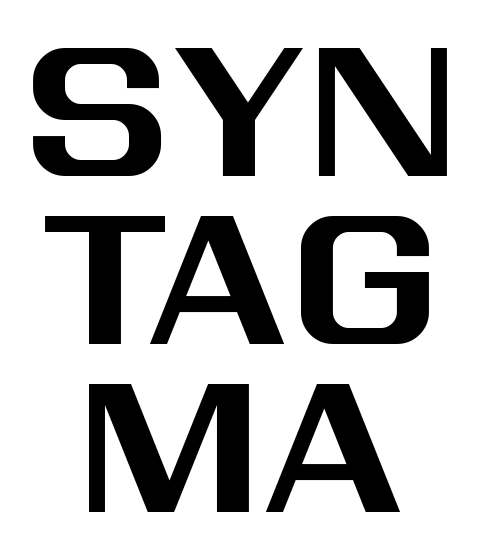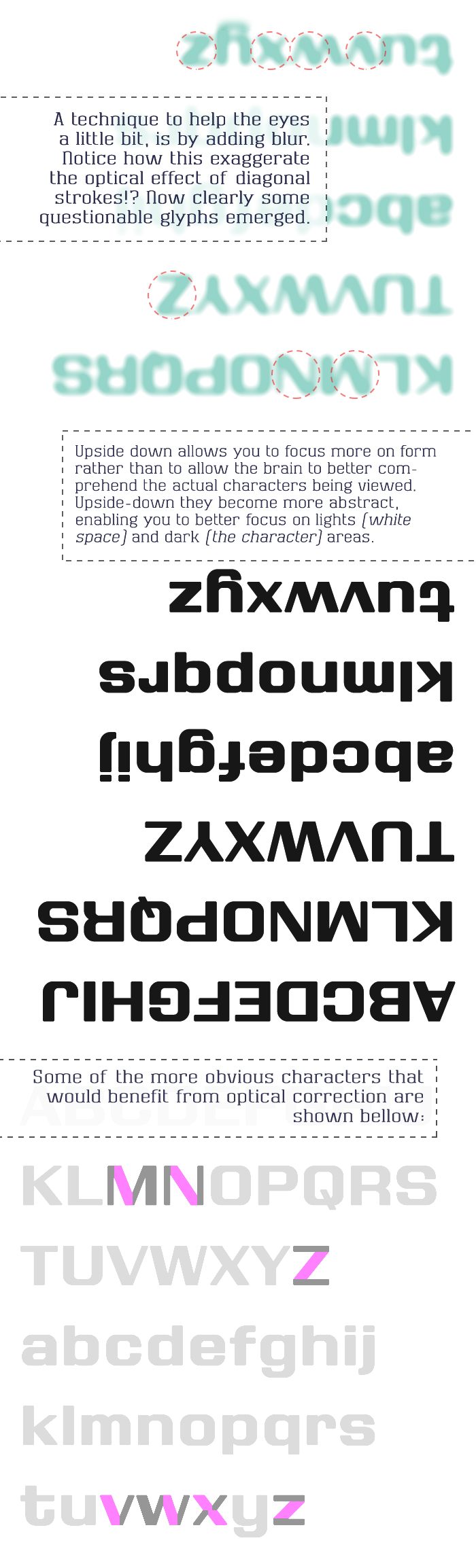
Another solid and highly functional font with that typical yautja flavour.
The one small thing I'd like to point out is that diagonal stroke weight for most characters feels a tad bit heavy sided compared to the vertical stroke weight.
@Sed4tives the stroke weights look okay to me, maybe it's just the quality of the FS preview? (At smaller sizes it looks pretty messy.) I'd like to hear more opinions on this.
Very nice contrast between horizontal and vertical. One of my fonts uses a similar contrast in its letters.
I wonder if making the curved areas larger on the D would make it look better?
I also wonder if making the numberals a bit narrower would help distingush the digit 0 from the capital O?
Sorry for the sheer size of the content, its quite a lot I know, but I couldn't simplify it more efficiently.. my apologies on this again. I'm pretty sure you know the majority of this quite well, but this shed some light the reasons for my previous judgement. I hope it clarifies it better this way. And again, regardless wether with or without these adjustments the font is a rock solid achievement that is super usable with tons of professional qualities.
Thanks for taking the time to explain, I see what you mean now. I guess my brain is too focused on consistency and "mathematical perfection" that these optical corrections are still something I'll need to work on (and also the reason why I like FontStruct's grid-based approach so much).
@BWM Thanks. I'd rather not use faux curves on the D... Making numerals narrower could work but I've never really liked that idea (see previous paragraph).
@Sed4tives: Constructive and useful explanation. Btw, I didn't know the technique of adding blur. I usually do it squinting, but this is better.